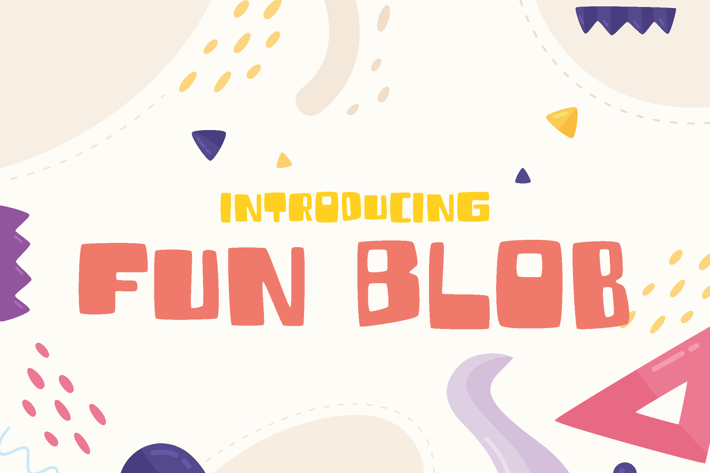
Fun Blob - funny kids font
FUN BLOB – The Ultimate Font for Kids, Toys & Party Fun!
Fun Blob is a chunky, bold kids font with playful curves, bouncy baseline, and joyful energy—perfect for fun-forward branding and children’s media. With soft-rounded terminals, cartoon-inspired shapes, and a geometric yet friendly flow, Fun Blob instantly draws attention while keeping readability intact. It’s the ideal fusion of fun, friendliness, and readability, giving a warm, approachable vibe to every word.
Designed with thick blobs and evenly spaced letterforms, this font is easy to pair with colorful visuals and works great across various digital and print surfaces. Whether you’re designing a children’s book cover, school event poster, or a mobile game UI, Fun Blob offers that delightful balance of energy and clarity.
Whether you’re developing content for educational apps, running a kids toy campaign, or creating social media designs for parenting brands, Fun Blob helps your message pop with a delightful, bouncy vibe.
Key Features :
Bubbly and Eye-Catching
- Chunky, friendly letterforms for playful aesthetics
- Cartoon-like design with a soft, bouncy flow
Versatile for All Kid-Focused Designs
- Great for posters, YouTube covers, signage, event banners, and product packaging
- Blends well with both bold colors and light pastels
* High Readability + Big Personality
- Balanced proportions make it legible even in vibrant layouts
- Adds fun without sacrificing clarity